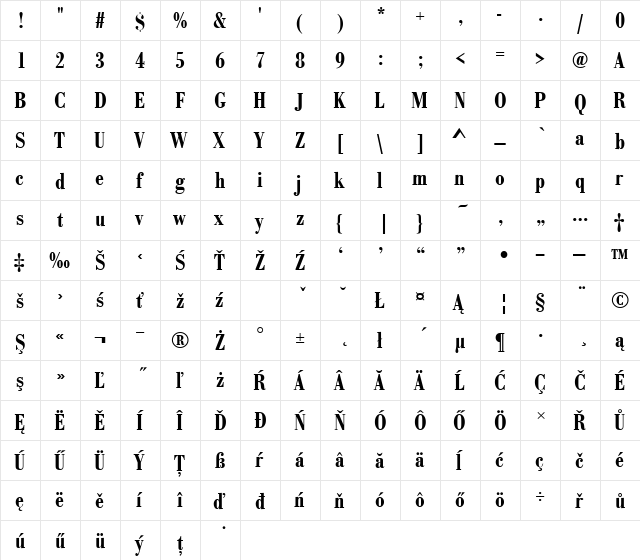
BodonAntTEEDemBolCon Regular
Design Context for BodonAntTEEDemBolCon Typeface
BodonAntTEEDemBolCon offers clean, dependable letterforms without strong stylistic allegiance, making it a practical choice for designers who need flexibility.